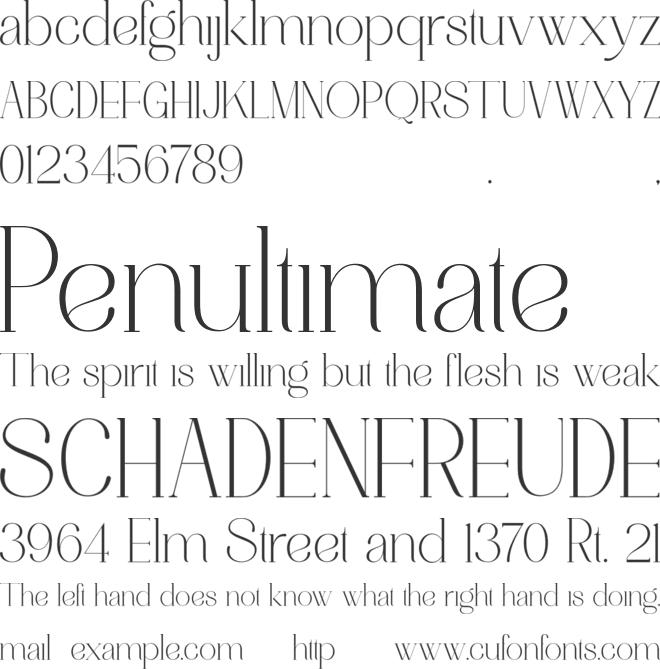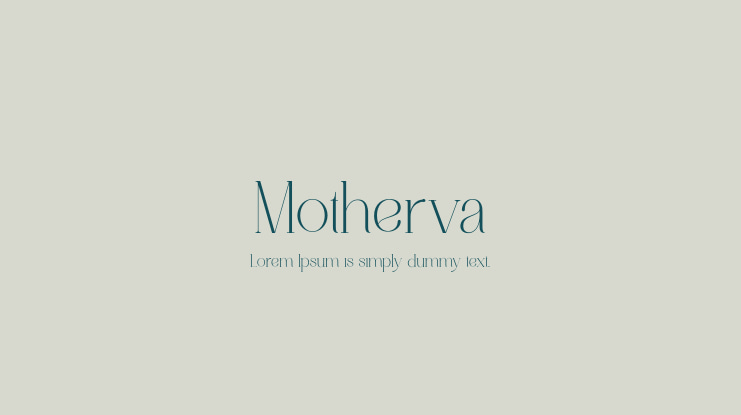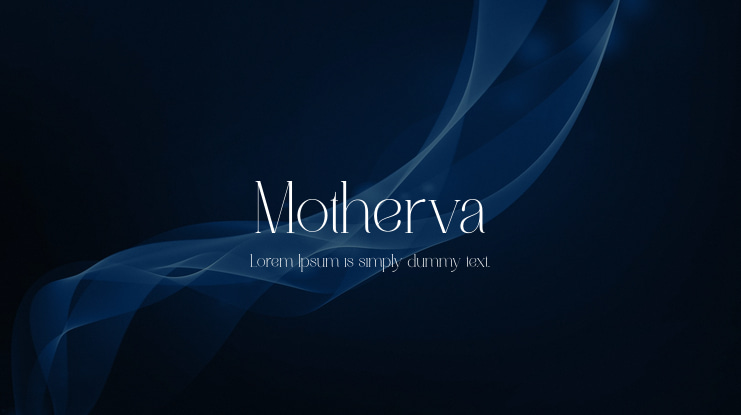
Motherva Font
A Font by Aluyeah Studio
To get results like the preview just type M.5oth.6er.2v.2a.4
Motherva, the most comfortable modern display font.